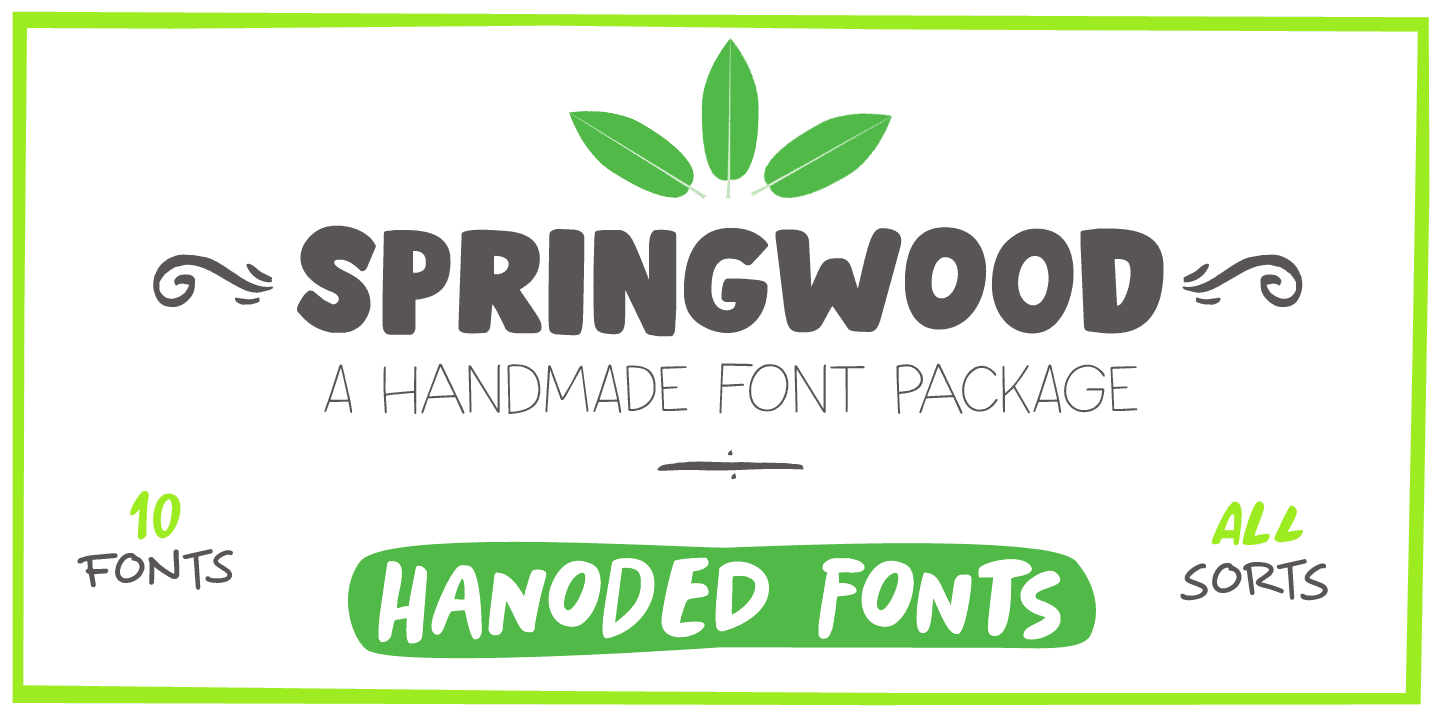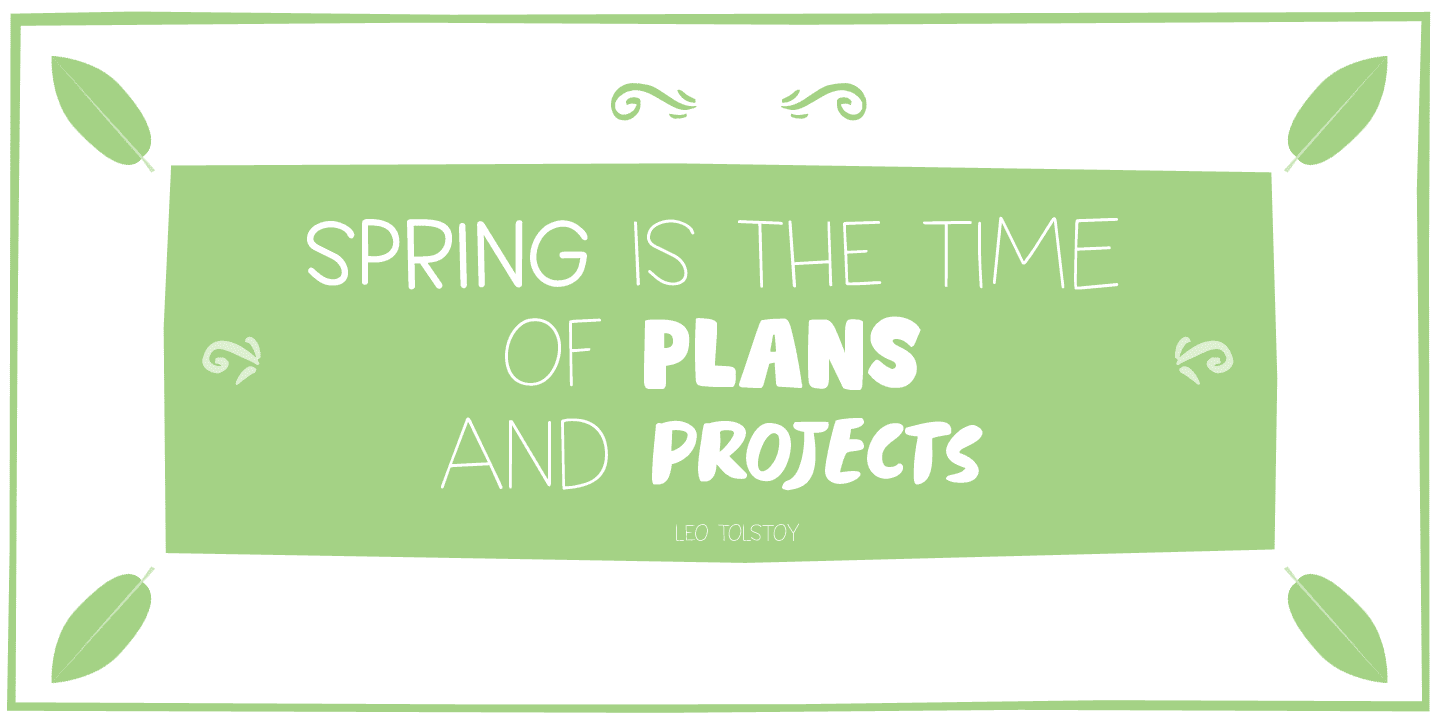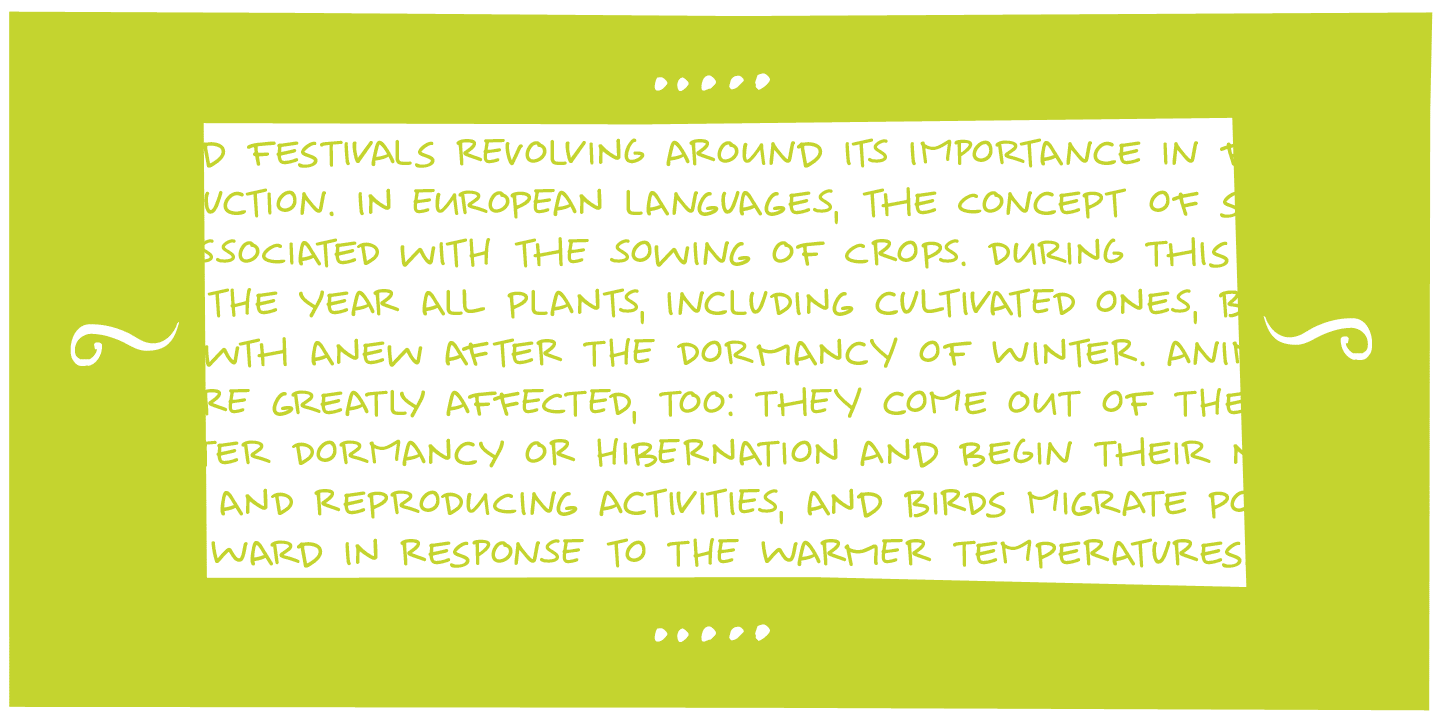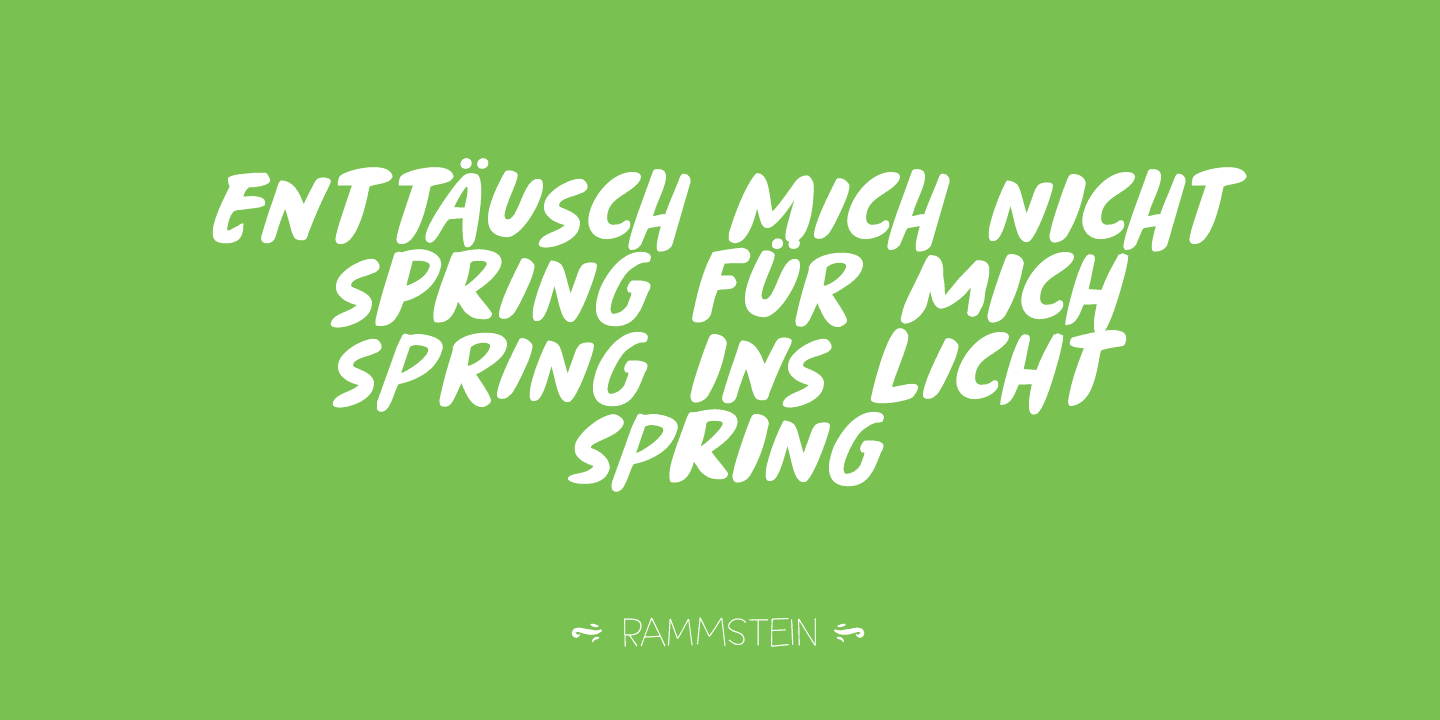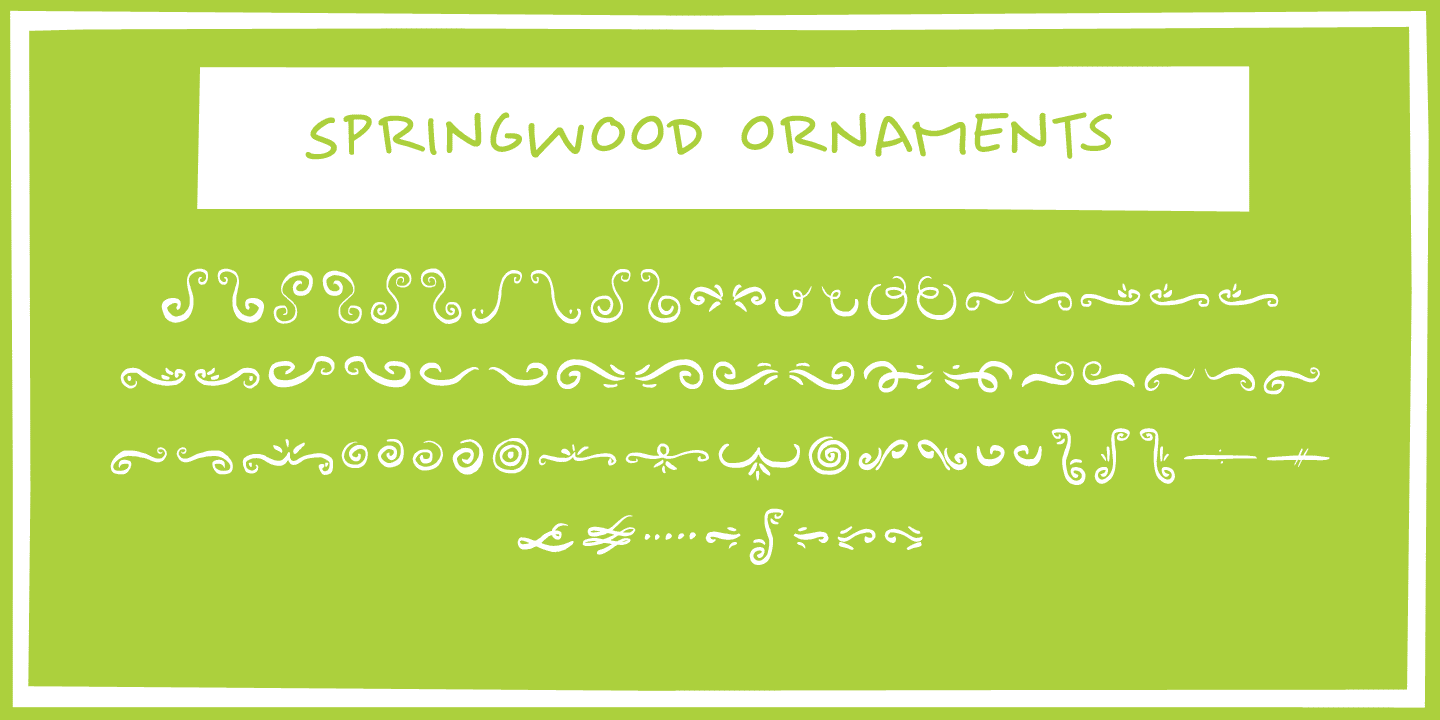
Springwood Family (10 fonts)
Springwood is a handmade set of fonts, ranging from a fat display font to a messy script font. Use it for your freshest ideas, your coolest designs or just anything that needs a bit of springtime.